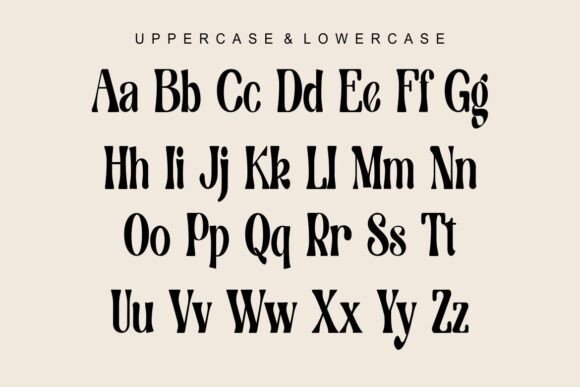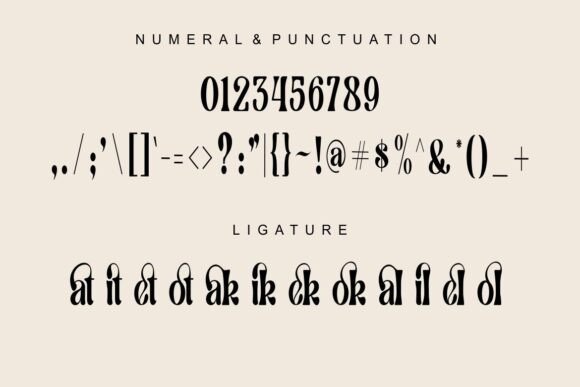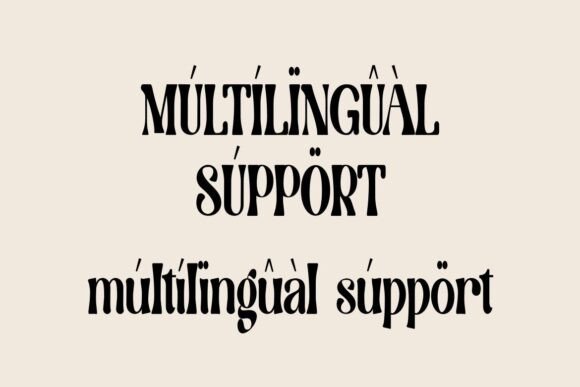
Introduction to Meladika Font
Meladika is an elegant and bold serif font.
Fall in love with its incredibly versatile style and use it to create gorgeous wedding invitations, beautiful stationary art, eye-catching social media posts, and much more .
Key Features of Meladika Font
Why Choose Meladika Font?
Meladika Font offers exceptional quality and versatility, making it a valuable addition to your design toolkit. Whether you’re creating for personal projects or commercial use, Meladika Font delivers professional results.